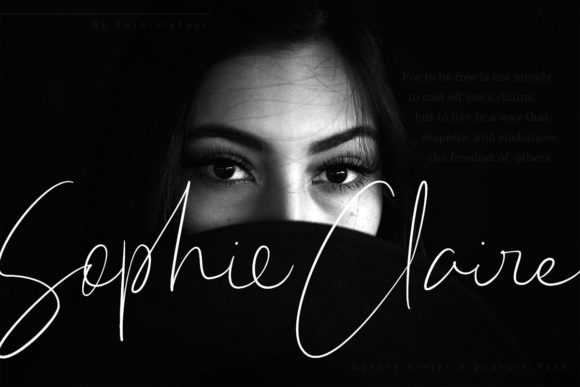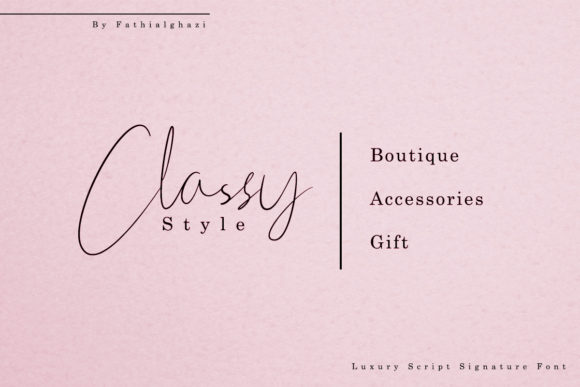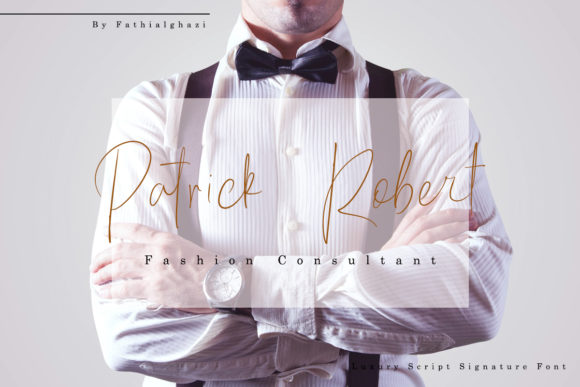
Introduction to Mellati Script Font
As designers, we’ve all been there – staring at a blank canvas, trying to come up with the perfect idea for a creative project. The words just won’t flow, and the blank page seems to mock us. But then, like a ray of sunshine, inspiration strikes, and we know exactly what we need to bring our vision to life. For me, it was the discovery of the Mellati Script Font – a beautiful, luxurious signature script that elevates any design to new heights.
With its high-quality, elegant lines and sophisticated feel, the Mellati Script Font is a game-changer for designers. Whether you’re working on a business card, a poster, or a brand logo, this font adds a touch of sophistication and refinement that’s hard to find elsewhere. And the best part? It’s available for free download, making it an invaluable resource for any design project.
So, what sets the Mellati Script Font apart from other design resources? Its versatility, for starters. With a transparent background, this font can be used in a wide range of media, from fashion to quotes, and everything in between. Whether you’re looking to create a stunning banner or a luxurious invitation, the Mellati Script Font is sure to deliver.
Key Features of Mellati Script Font
- High-quality, elegant script font perfect for creative projects that require a touch of sophistication.
- Features a transparent background, making it easy to layer over images or other design elements.
- Designed with a high resolution of 300 DPI, ensuring crisp and clear text even at large sizes.
- Perfect for use in a variety of creative projects, including invitations, logos, and other design elements that require a unique, handwritten feel.
Honest Review: Mellati Script Font
As a designer, I’m always on the lookout for high-quality design resources to elevate my creative projects. The Mellati Script Font caught my attention with its elegant and sophisticated vibe.
- ✨ Beautifully crafted letterforms with a vintage flair
- ✨ Suitable for a wide range of applications, from invitations to branding materials
However, I do have a few reservations:
- ⚠️ Limited font styles and weights, which might restrict its use in certain design contexts
- ⚠️ No transparent background option, which can be a limitation for designers who prefer a more subtle look
Overall, I’m impressed with the Mellati Script Font’s design quality and versatility. While it may have some limitations, it’s a valuable addition to any design resource collection. If you’re looking for a high-quality script font for your creative project, I’d definitely recommend giving it a try.
Tips for Getting the Most Out of Mellati Script Font
- Use the font with a transparent background to create a beautiful, layered look.
- Combine the font with other design elements, such as illustrations or graphics, to create a unique and creative project.
- Experiment with different font sizes and styles to create a visually appealing design.
- Business cards and marketing materials
- Blog posts and social media graphics
Pacifico has a more refined and polished look compared to Mellati Script Font, making it suitable for formal events and corporate designs. It’s available for free download and can be used in a variety of design resources, including logos, business cards, and website headers.
Yes, the Mellati Script Font includes a transparent background, making it easy to use in design projects where you need to layer text over images or other backgrounds. This feature allows for a seamless and professional-looking design.
Can I customize the Mellati Script Font?
Yes, the Mellati Script Font is fully editable and can be customized to fit your specific design needs. You can adjust the font size, color, and style to match your project’s requirements. Additionally, you can use font editing software to modify the font’s characteristics and create unique variations.